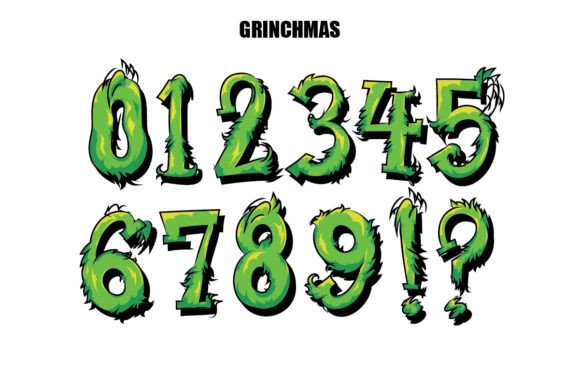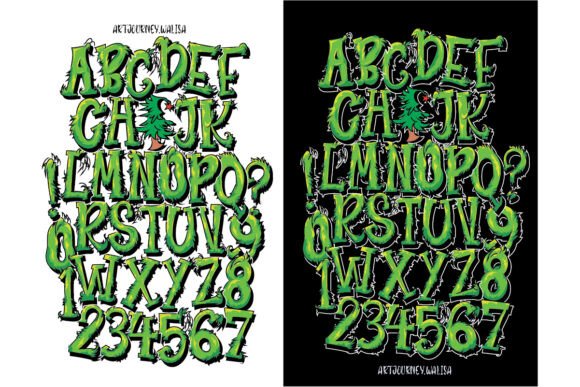
Grinchmas Font
Grinchmas Christmas-themed hand Drawn Alphabet design with green Grinch letters, and Christmas elements. Perfect for horror party invitations, t-shirt designs, stickers, and digital art projects. Unique bold color font style for December Happy season lovers.
– Grinchmas-themed funny looks